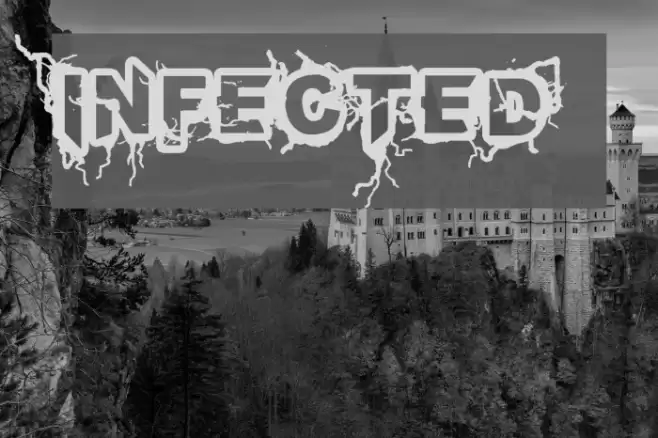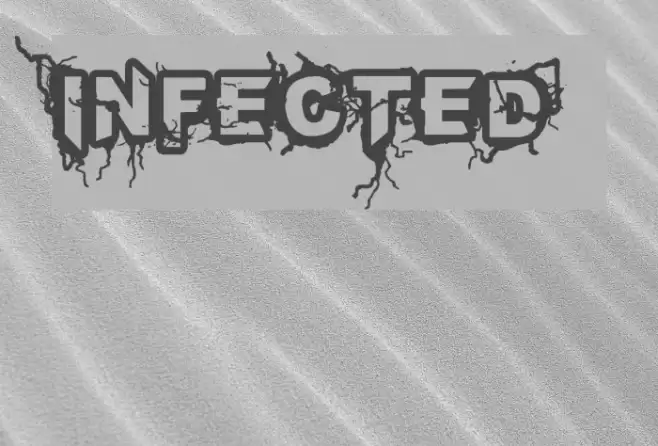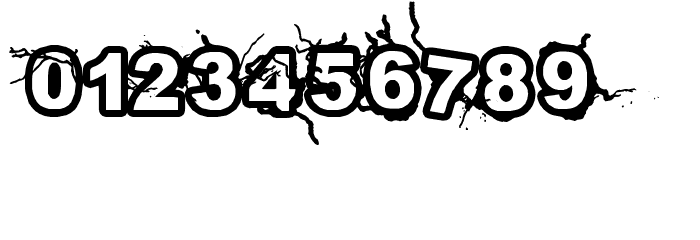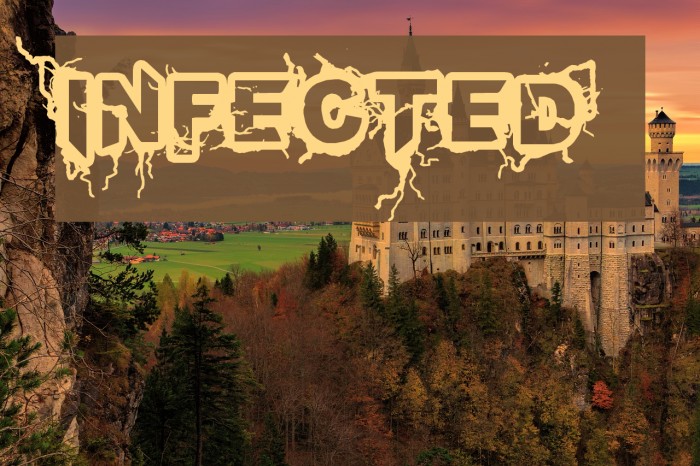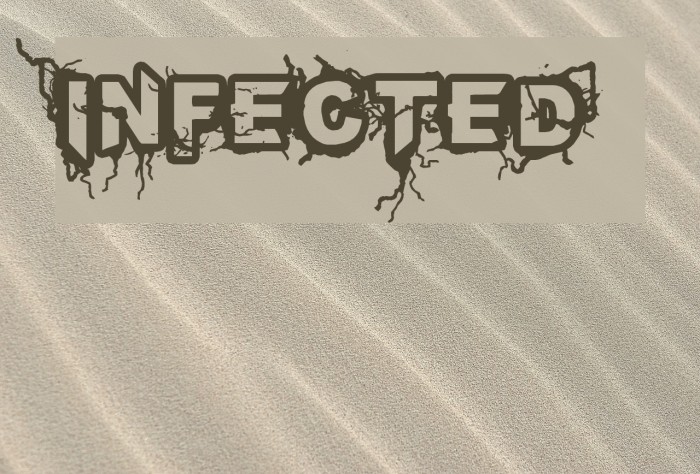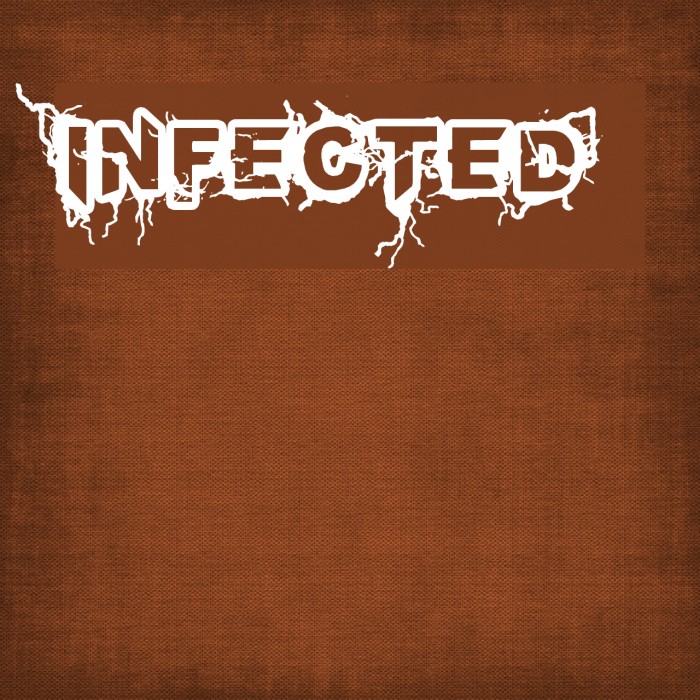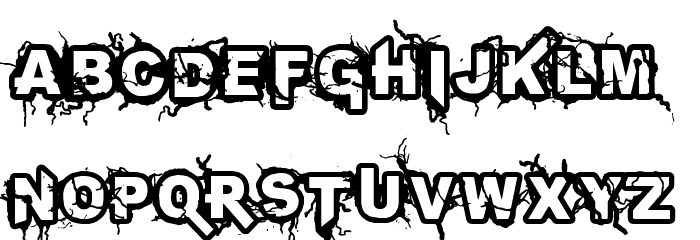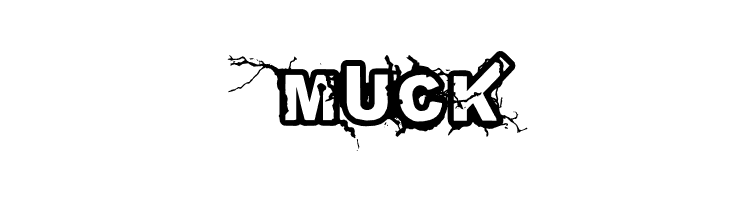
INFECTED Font
INFECTED Description
This font features a bold, distressed style with a grungy, cracked texture that gives it a unique, edgy appearance. The characters are uppercase and have a thick outline, enhancing their visibility and impact. The design incorporates irregular, jagged edges that create a sense of decay or erosion, making it ideal for projects that require a gritty, urban aesthetic. The font's boldness ensures that it stands out, while the distressed elements add a layer of complexity and interest. It is well-suited for creative projects that aim to convey a sense of rebellion or nonconformity.
A bold, distressed font with a grungy, cracked texture and jagged edges from Uncategorized fonts.
- Proposed Projects: Ideal for music album covers, horror movie posters, street art designs, and edgy branding projects.
- Overall Style: Grunge, Urban, Edgy